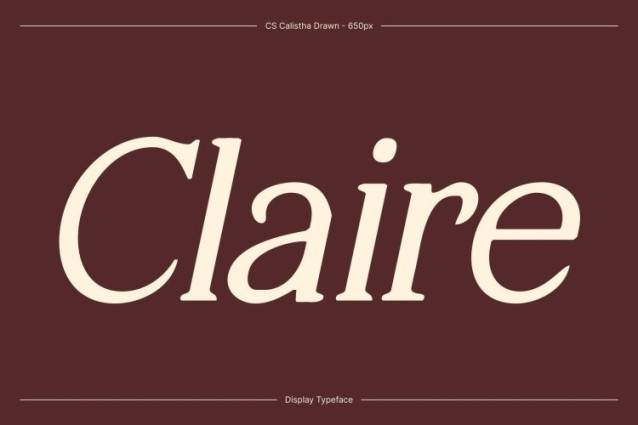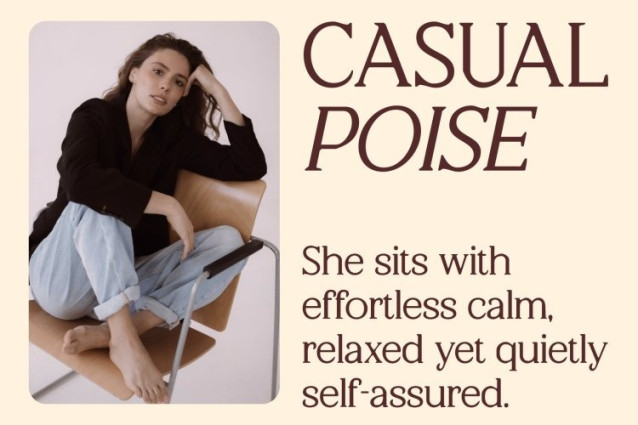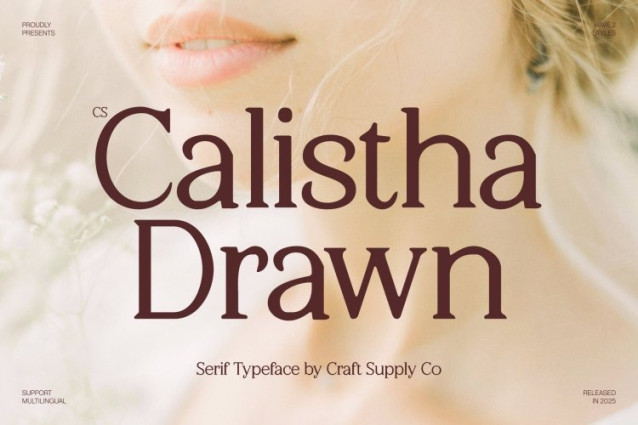
CS Calistha Drawn Font
CS Calistha Drawn Font This is an elegant serif font crafted to express refinement, beauty, and timeless sophistication. Its flowing letterforms and graceful proportions create a calm yet confident presence, making every word feel intentional and elevated. Enhanced with a subtle drawn texture, the font gains warmth and character while preserving its polished, high-end appeal.
Refined Curves for a Luxurious Impression
The charm of this font lies in its smooth curves and carefully balanced strokes. Each letter flows naturally, creating a harmonious rhythm that feels soft, refined, and visually pleasing. This gentle movement enhances readability while reinforcing a luxurious aesthetic suited for premium and tasteful designs.
Perfect for Editorials, Branding, and Luxury Design
Designed for versatility in elegant applications, this font excels in luxury branding, editorial layouts, fashion graphics, wedding designs, and high-end packaging. Its graceful structure elevates text into a refined visual statement, adding credibility, beauty, and professionalism to every project.
Timeless Style with Modern Sensibility
Blending classic serif traditions with modern precision, this font offers a timeless design that feels relevant and sophisticated. Its elegant flow, refined details, and handcrafted texture make it the ideal choice for designers seeking to create visuals that are luxurious, intelligent, and enduring.